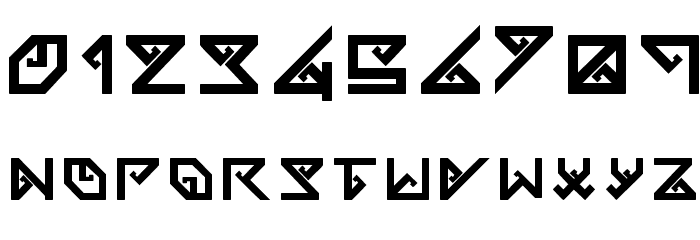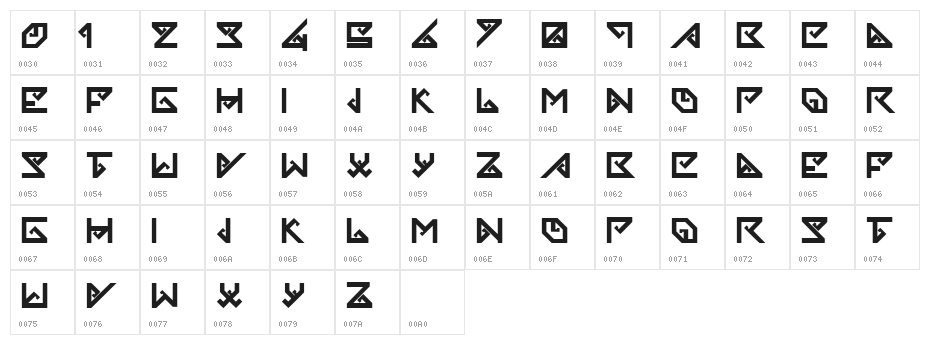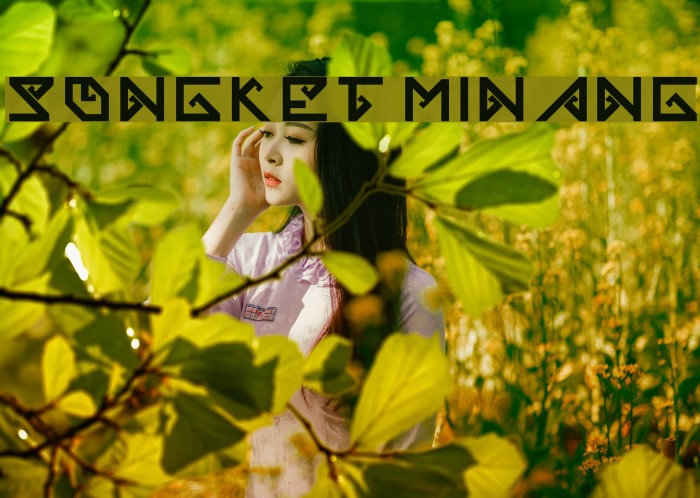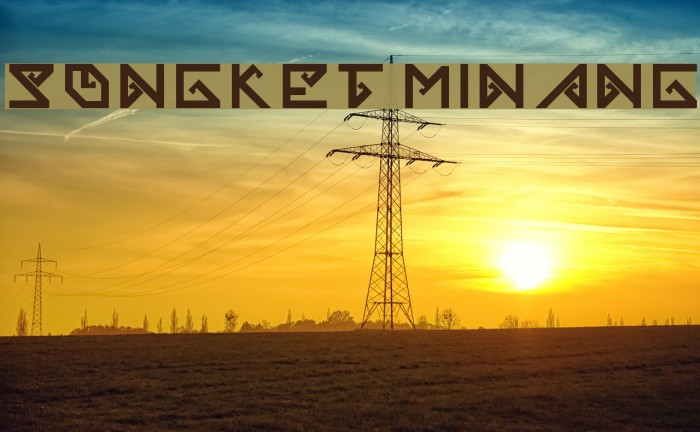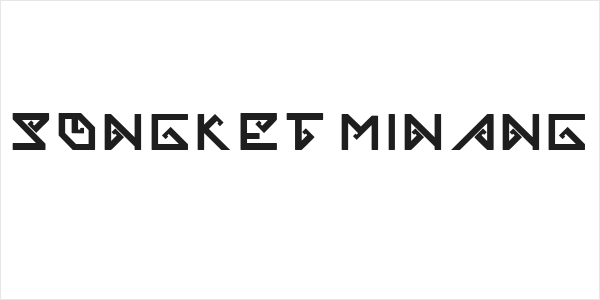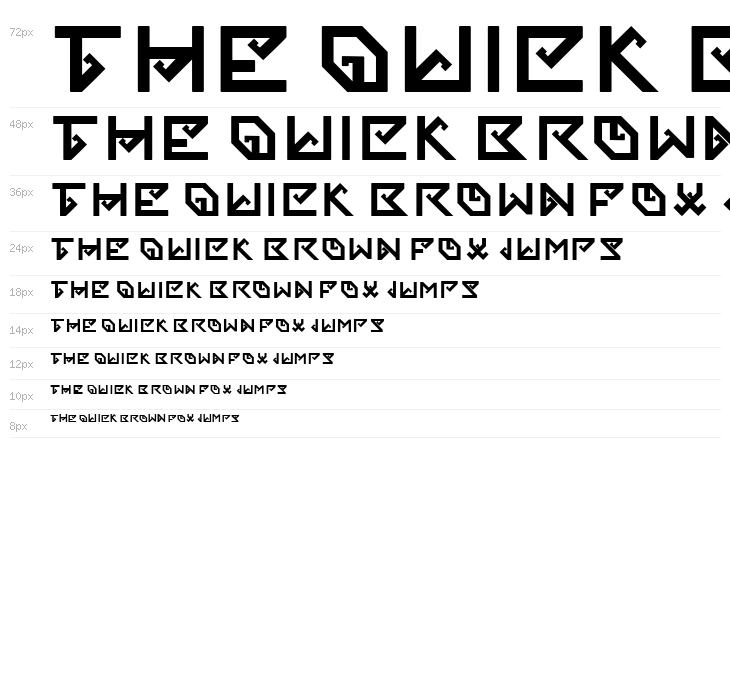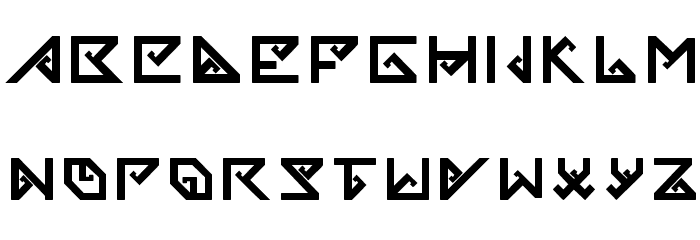
Songket Minang Font
Songket Minang Description
This font features a bold and geometric design, characterized by sharp angles and a strong presence. Each character is crafted with a unique angular style, giving it a distinct and modern appearance. The uppercase and lowercase letters maintain a consistent geometric theme, while the numbers and special characters complement the overall design. The font's boldness and angularity make it suitable for projects that require a striking and contemporary look.
| Proposed Projects | Ideal for branding, posters, and headlines that require a modern and striking appearance. |